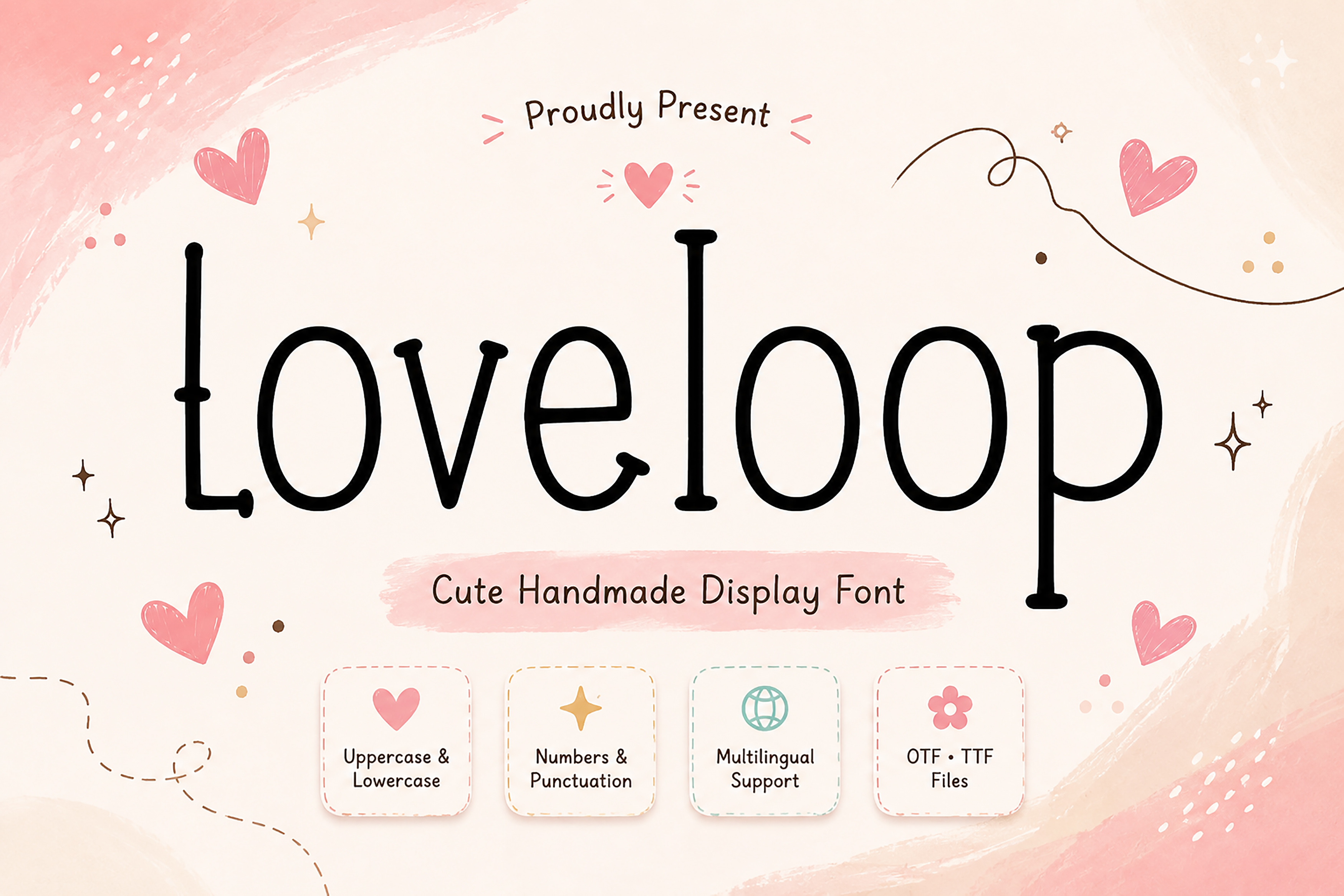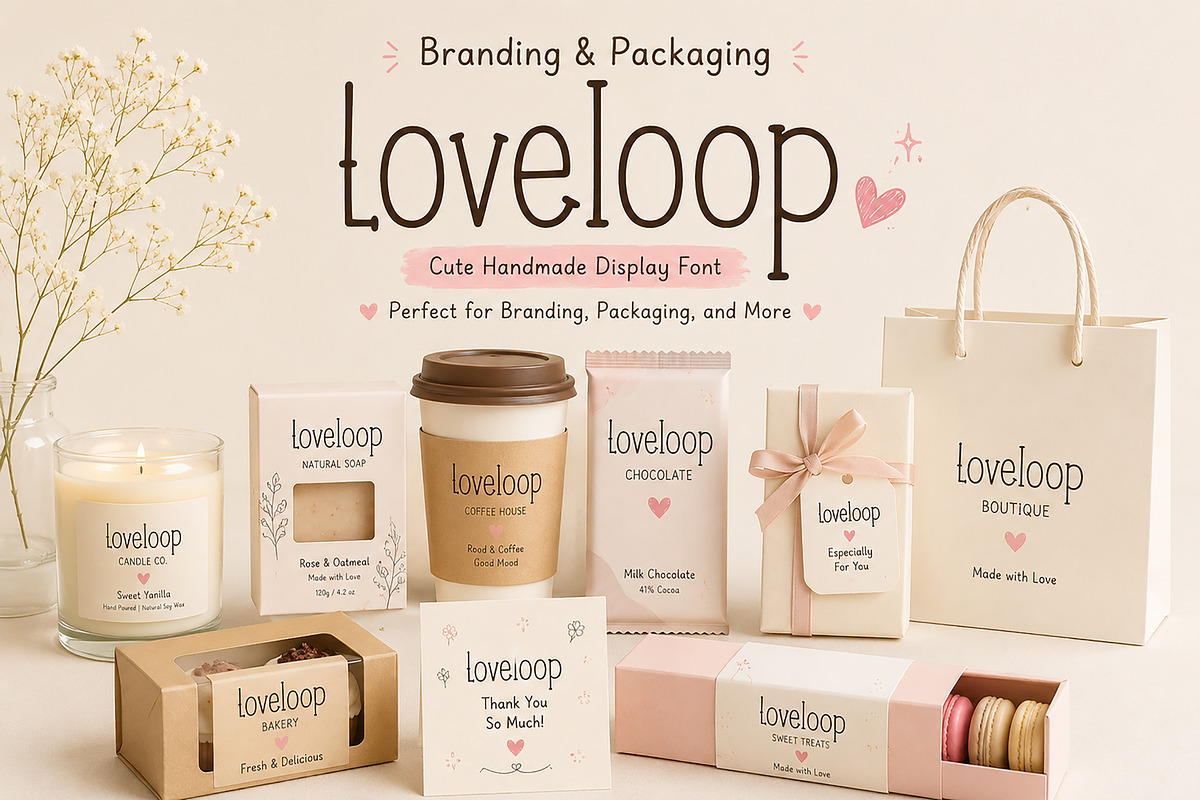
Loveloop – Handmade Font
Loveloop – Cute Handmade Display Font
Description
Loveloop is a charming handmade display font designed to add warmth, personality, and creativity to your projects. With its playful hand-drawn strokes, rounded shapes, and whimsical style, this font is perfect for designs that need a friendly and approachable look.
Whether you're creating branding, social media graphics, packaging, greeting cards, invitations, posters, or cute merchandise, Loveloop brings a delightful handcrafted touch that instantly captures attention. Its clean yet playful appearance makes it suitable for both personal and commercial design projects.
Loveloop works beautifully across both print and digital designs, making it an excellent choice for creative entrepreneurs, small businesses, crafters, and content creators looking for a unique handwritten display font.
Branding & Packaging
Instagram Posts & Stories
Pinterest Pins
Greeting Cards
Wedding Invitations
Baby Shower Designs
Quotes & Typography
Stickers
T-Shirts
Tote Bags
Mugs
Posters
Scrapbooking
DIY Crafts
Product Labels
Gift Tags
Bakery & Café Branding
Add a sweet handmade charm to your next creative project with Loveloop, a font designed to make every design feel warm, fun, and memorable.